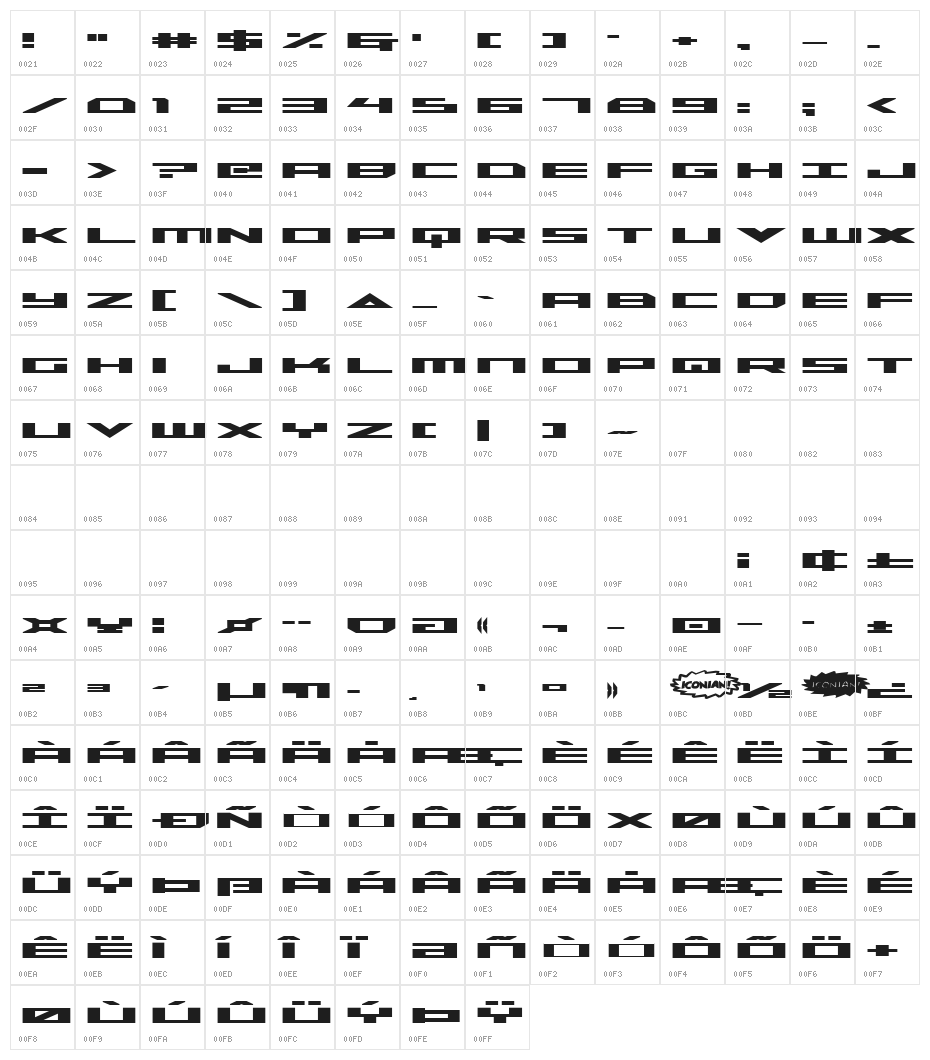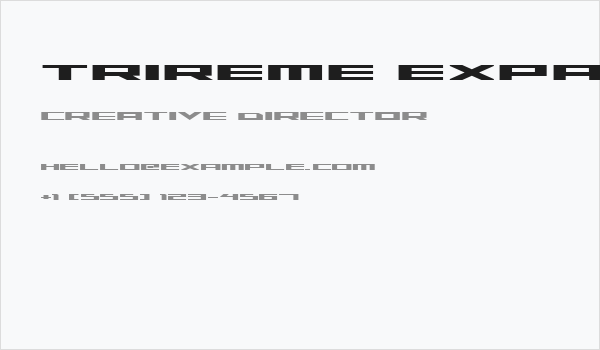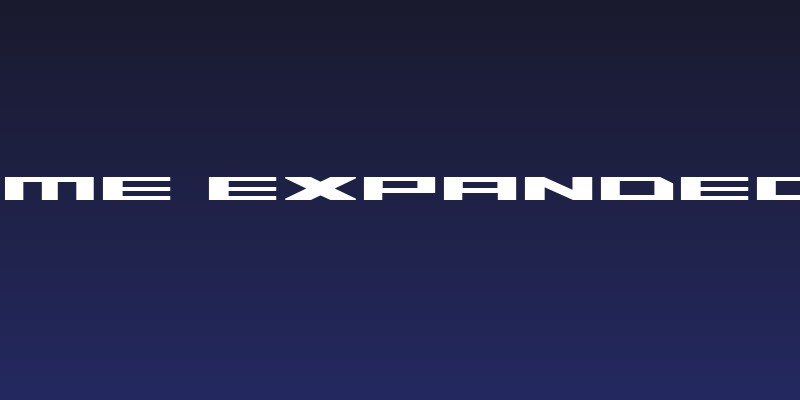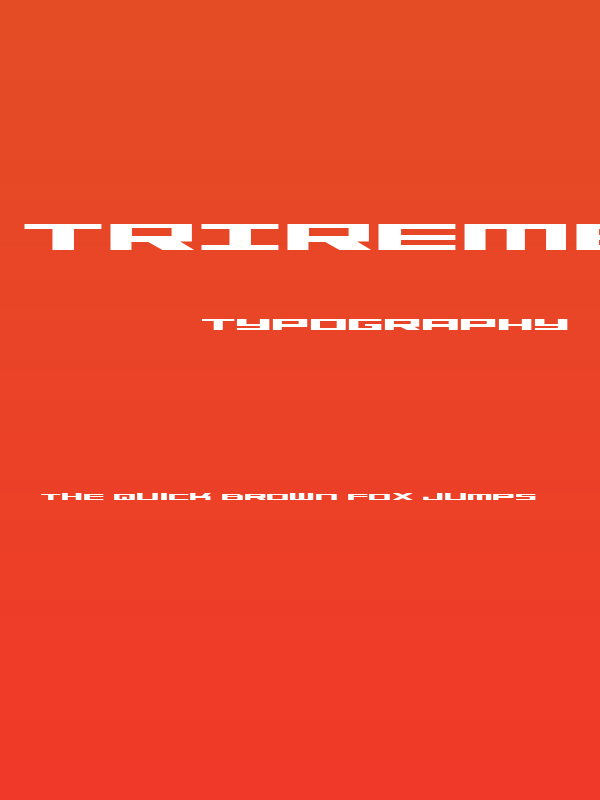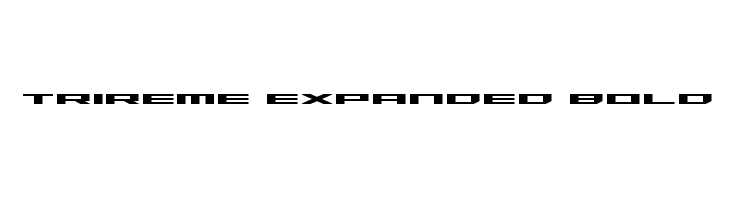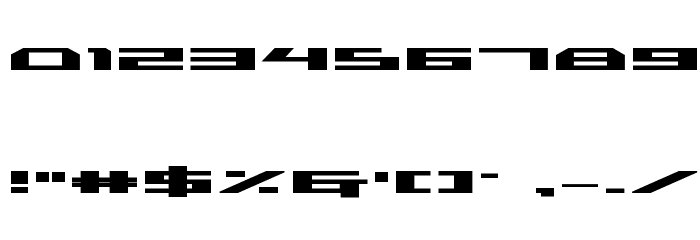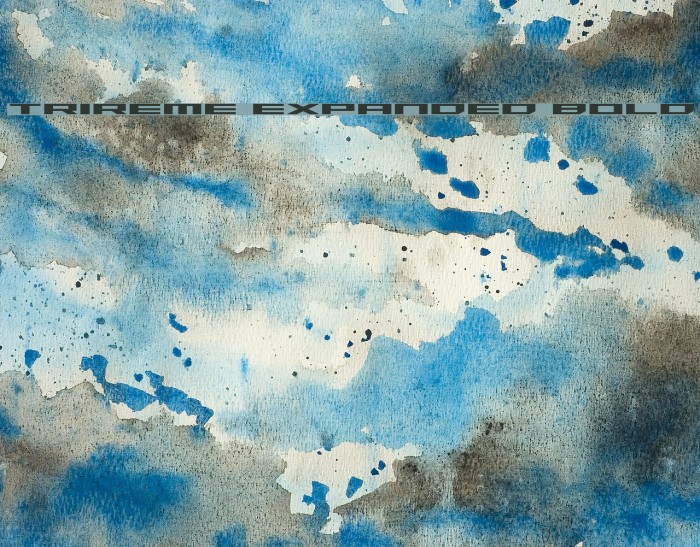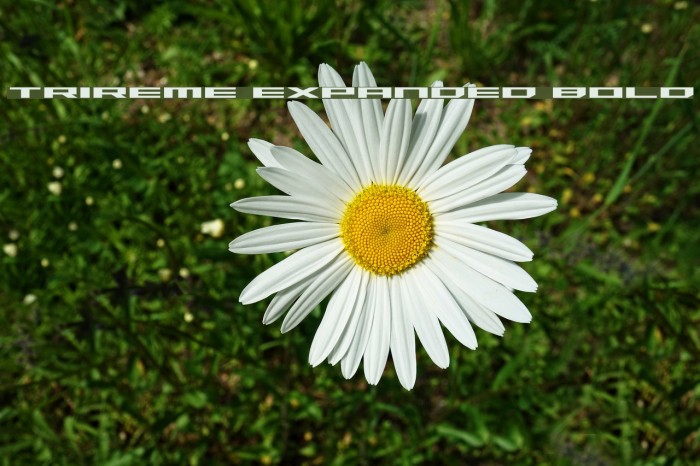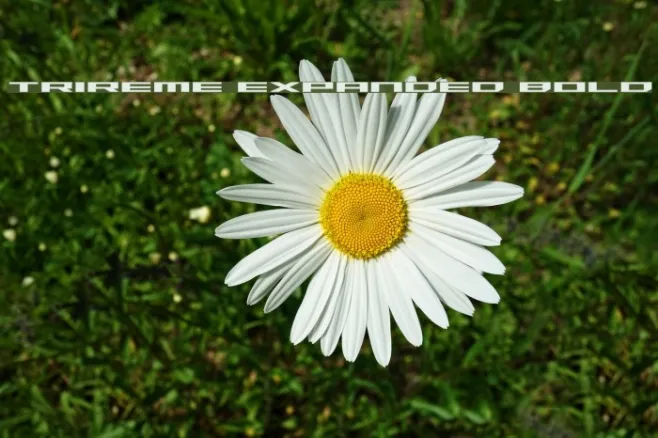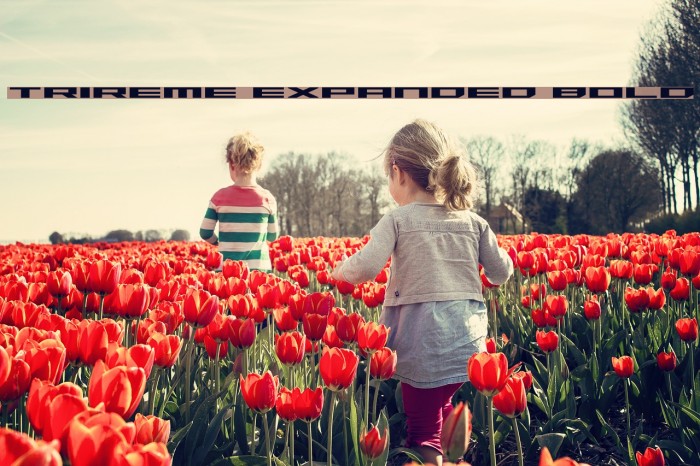
Trireme Expanded Bold Font
Trireme Expanded Bold Description
This font features a bold and expanded style with a futuristic and geometric design. The characters are constructed with sharp angles and straight lines, giving it a modern and tech-inspired appearance. The uppercase letters are uniform in height, while the numerals and special characters maintain the same boldness and angularity. This font's distinct and striking look makes it ideal for projects that require a strong visual impact.
| Proposed Projects | Ideal for technology branding, sci-fi posters, video game titles, and modern advertising. |